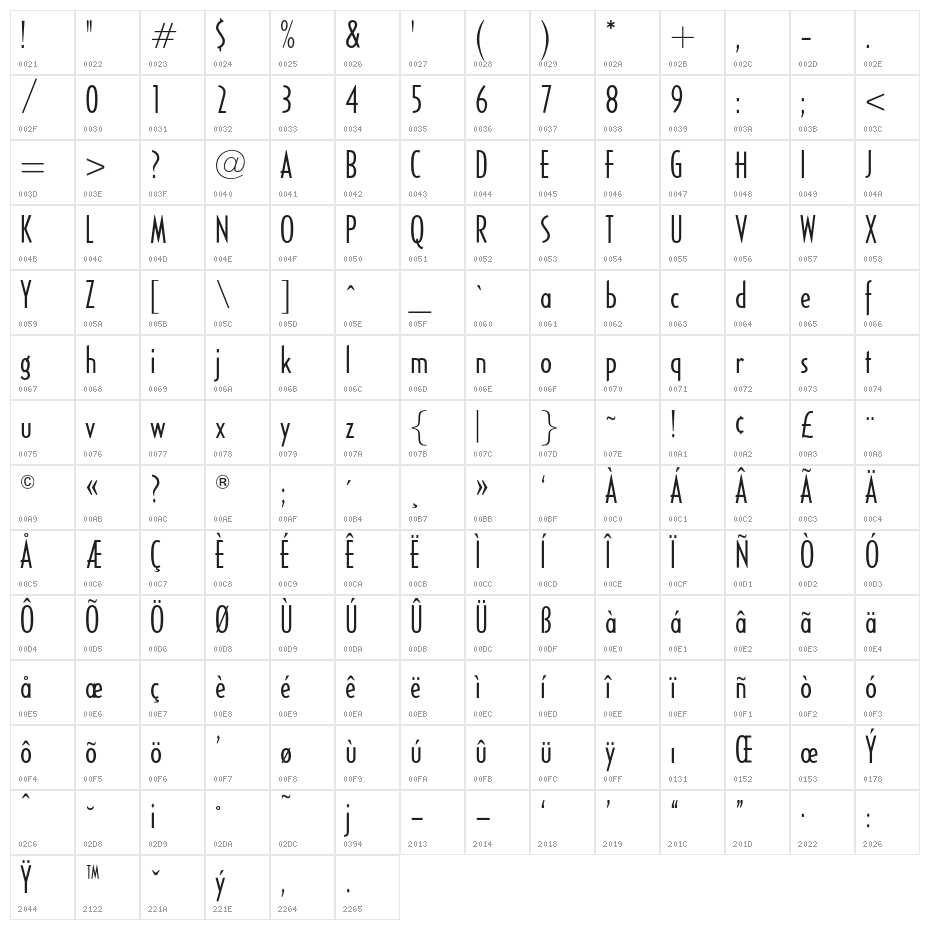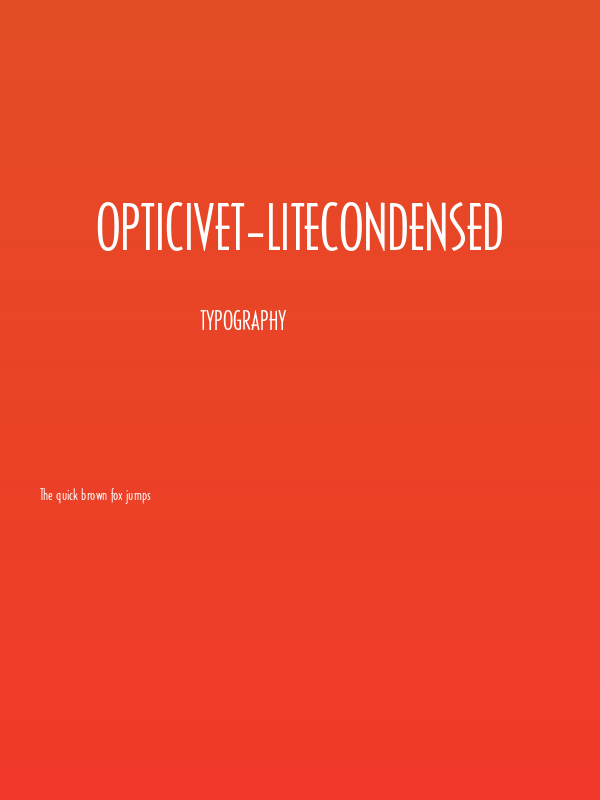
OPTICivet-LiteCondensed Font
OPTICivet-LiteCondensed Description
This font features a sleek and modern design with a condensed structure, making it ideal for space-saving applications. The characters are tall and narrow, with a consistent stroke width that gives it a clean and uniform appearance. The uppercase letters are particularly elongated, while the lowercase letters maintain a balanced proportion. The numerals are clear and distinct, ensuring readability. Special characters are well-integrated, maintaining the overall aesthetic. This font's minimalistic style is suitable for a variety of design projects, offering a contemporary and professional look.
| Proposed Projects | Ideal for branding, advertising, posters, and editorial design where space is limited. |